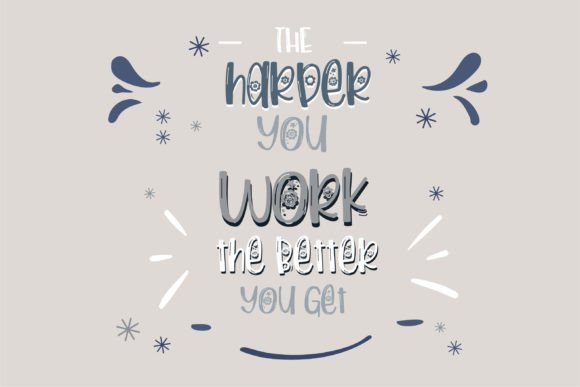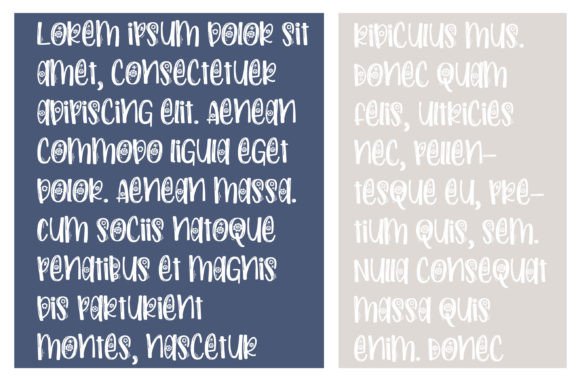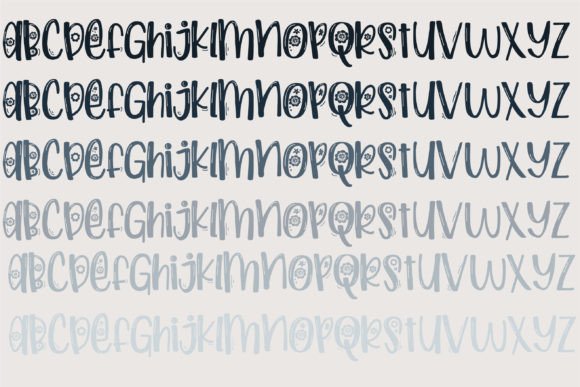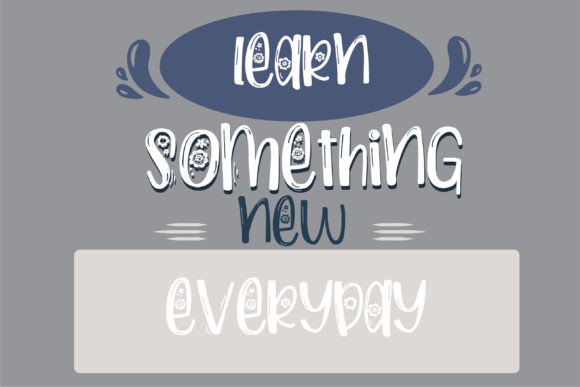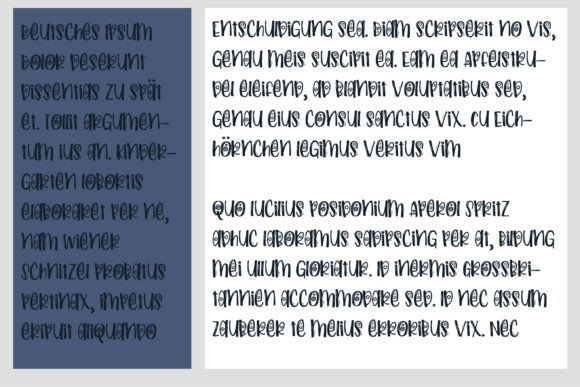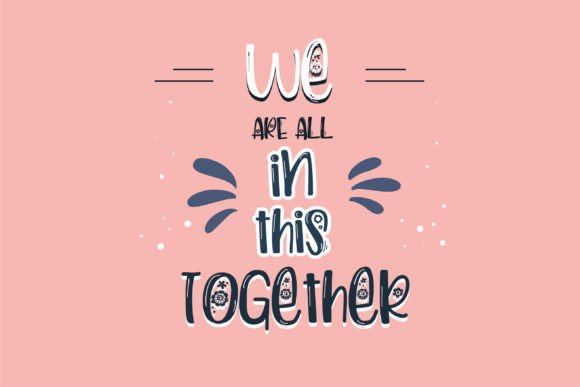
Pocketful of Posies Font
About Pocketful of Posies Font
Pocketful of Posies is an endearing handwritten font adorned with dance lines and charming floral elements. This delightful typeface adds a touch of whimsy and playfulness to your designs, making it a wonderful addition to any font library. Whether you’re working on projects related to invitations, greeting cards, social media graphics, or more, Pocketful of Posies has the versatility to enhance your creative endeavors.
The dance lines in the font contribute to its dynamic and lively appearance, creating a sense of movement and energy. This feature makes Pocketful of Posies particularly suitable for projects that aim to convey joy, celebration, or a light-hearted atmosphere. The font’s floral elements add a hint of nature and beauty, making it perfect for designs that evoke feelings of warmth and positivity.
The handwritten style of Pocketful of Posies brings an authentic and personal feel to your text, making it more relatable and engaging. Handwritten fonts are often chosen to add a human touch to designs, creating a connection with the audience.
Additionally, the versatility of Pocketful of Posies extends to its ease of use across various design applications. Whether you’re using it in graphic design software, presentations, or other creative platforms, this font integrates seamlessly into your projects.
In conclusion, Pocketful of Posies is not just a font; it’s a creative tool that can elevate your designs with its playful and charming aesthetics. It’s a go-to choice for those looking to infuse a sense of cheerfulness and natural beauty into their creations. Let Pocketful of Posies be the font that adds a delightful touch to your next project, making it stand out with its unique and captivating character.